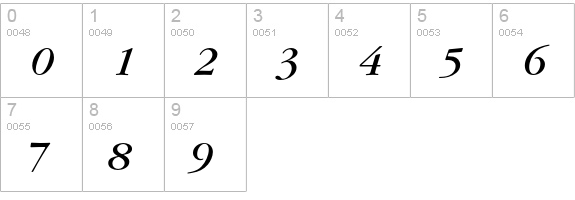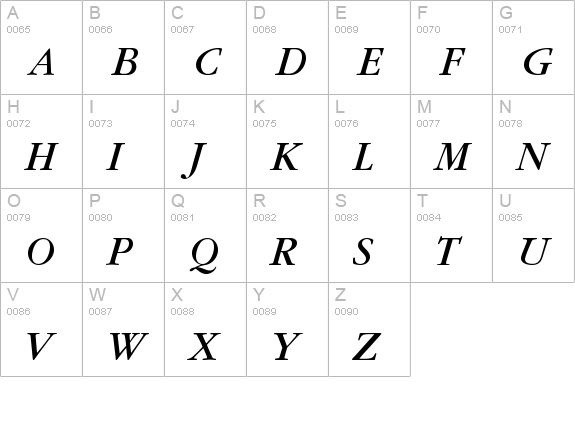
GaramondEF-BookItalic is a classic and elegant font that embodies the beauty of the Garamond typeface with a touch of stylish italic flair. Its timeless design and graceful curves make it a perfect choice for any project that requires a touch of sophistication and refinement. This font exudes a sense of timeless elegance, making it an ideal choice for high-end branding, book covers, invitations, and elegant designs. Its italicized form adds a subtle sense of movement and fluidity, making it a versatile choice for both print and digital applications. One of the best things about GaramondEF-BookItalic is that it is available for free download at FontsMarket.com. This means that you can easily access this beautiful font without any cost or hassle. FontsMarket.com is a reputable source for high-quality fonts, and they offer GaramondEF-BookItalic as part of their extensive collection. Whether you are a professional designer looking to enhance your typography arsenal or a casual user in need of a stylish font for personal projects, GaramondEF-BookItalic is a fantastic option. Its sleek and graceful design, combined with the convenience of being freely available at FontsMarket.com, makes it a must-have font for anyone seeking to elevate their designs to new levels of elegance and sophistication.